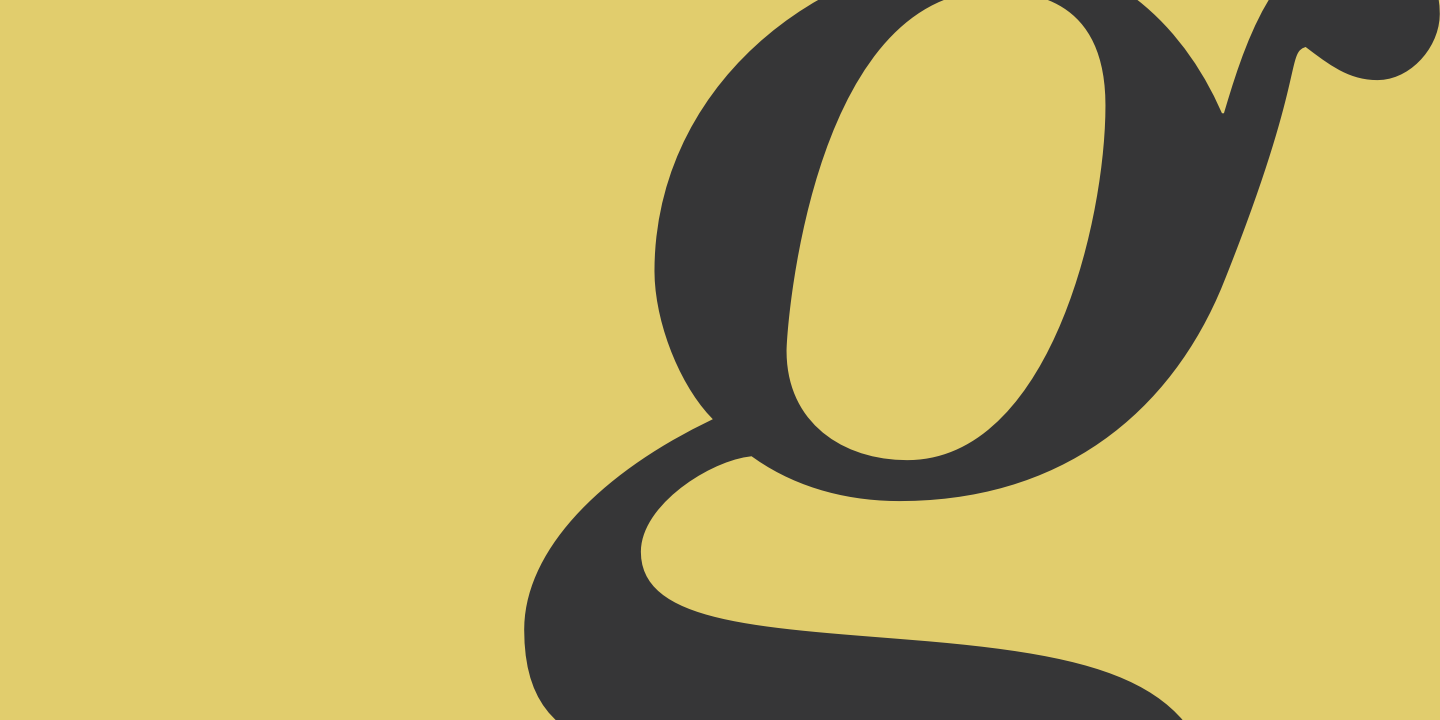
This classic high-contrast serif typeface is perfect for luxury fashion brands, high-end magazines, cosmetic packaging, jewelry advertising, art galleries, premium invitations, sophisticated branding, editorial headlines, and elegant logo design.
Bodoni Font brings excitement to your design projects with its dramatic elegance and neoclassical sophistication. This iconic serif font features striking contrast between thick and thin strokes that creates immediate visual impact, making it perfect for luxury brands that demand attention and convey premium quality. The font's mathematical precision and refined geometry ensure exceptional beauty while maintaining excellent readability in display applications.
The Bodoni Font family includes book, roman, bold, and poster weights, plus their corresponding italic styles. This prestigious range provides designers with complete typographic control for creating luxurious brand communications that capture the essence of Italian design excellence and typographic artistry.
Transform your brand into a luxury statement with Bodoni Font Free Download today. This legendary typeface combines neoclassical beauty with contemporary functionality, making it indispensable for premium brand communications. Whether you're designing fashion campaigns, creating luxury product packaging, or developing high-end editorial layouts, this font delivers prestigious results with its dramatic character and timeless elegance.
The meticulously crafted letterforms ensure consistent luxury appeal across all premium applications. Download Bodoni Font now and embrace typographic perfection with this masterpiece that has defined luxury communication for over two centuries with unmatched sophistication and enduring beauty.